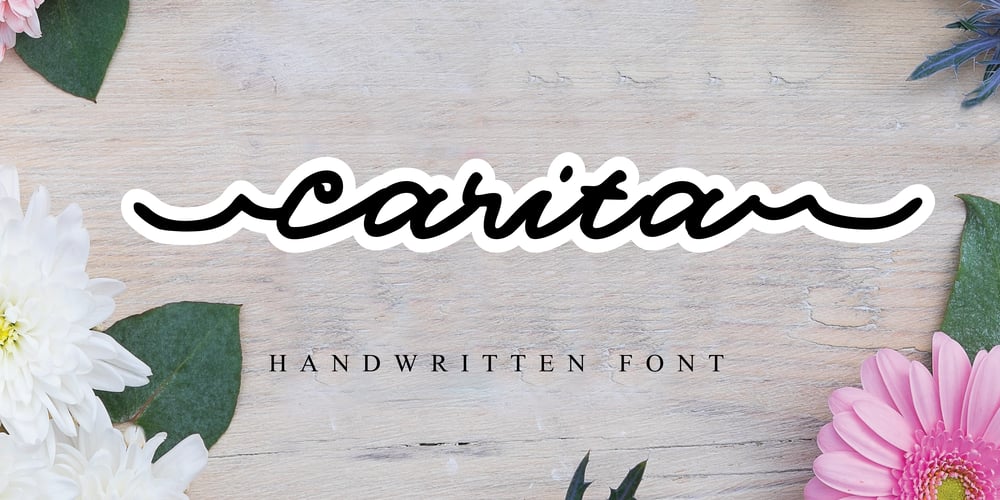
Carita Font Family was designed by Mariyana and published by Goodigital13. Carita contains 1 styles and family package options. Great to use for logos, inspirational quotes, t-shirt graphics, typography art, apparel, labels, posters, business cards, stylized wedding invitations, prints, signs, book cover designs headlines, titles, etc.Beauty Influencer, Interior Designer, or run a Cooking YouTube channel – looking for a way to stand out from your competition. Maybe you feel like your birthday e-cards are missing that “something”.If you can say “yes” to any of these then hold on to your seats and get ready for a modern, fun, and delightful experience!